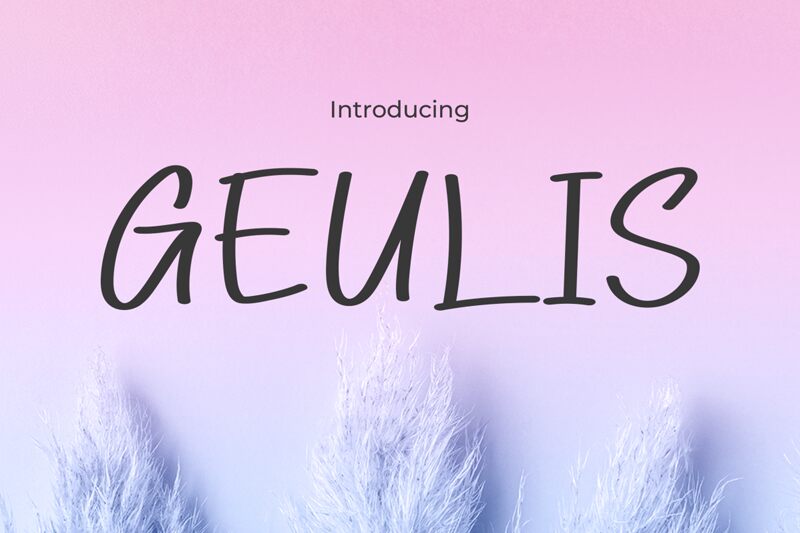
Geulis font designed by Pinisiart is a free handwritten font with a casual feel and contemporary design. Its unique combination of relaxed appearance with fun vibes makes it an ideal display font for various personal and professional applications. Even though the font is made out of uppercase characters only, it is equipped with strong yet subtle ink texture and pressure.
If you are looking for a font with a friendly mood and approachable aesthetic, use Geulis in posters, flyers, greeting cards, personal blogs, and more. The author also recommends the use of the font in clothing items such as t-shirts as well as other products and packaging labels.